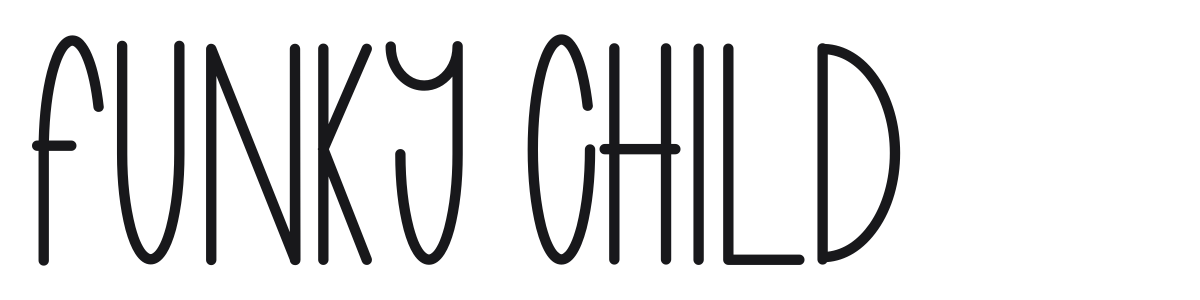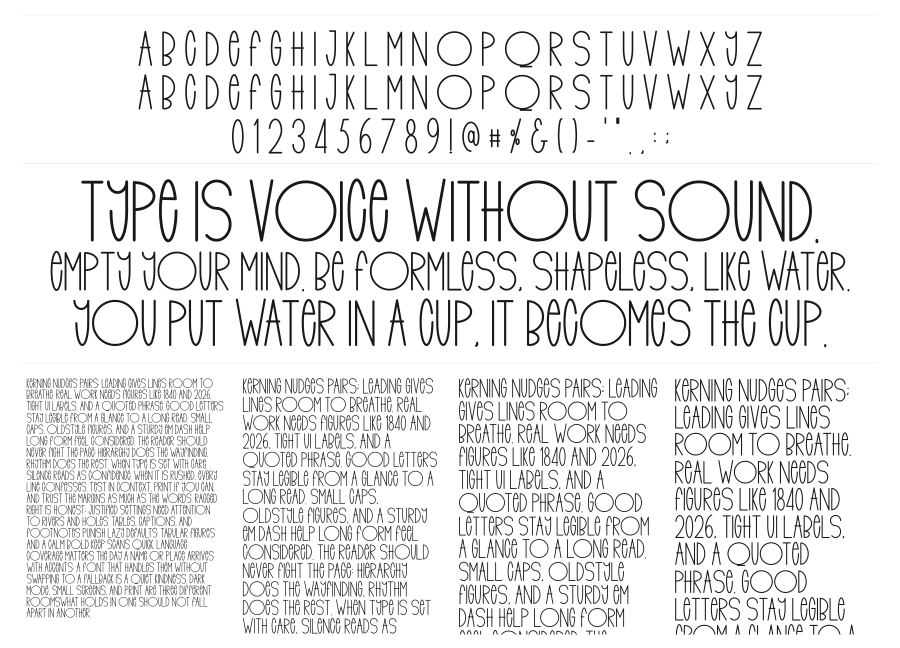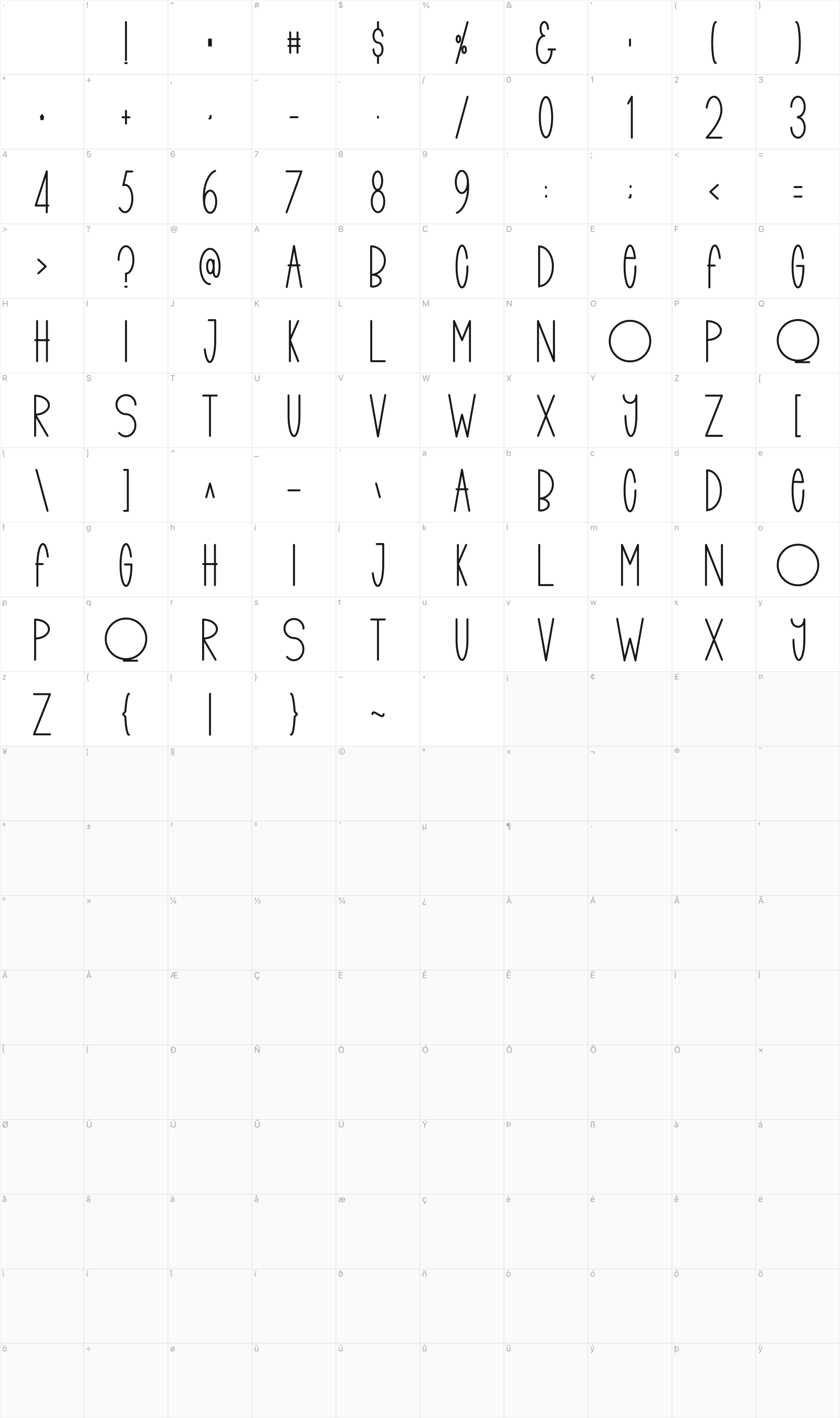
Funky Child
by Andang Prasetyo
Funky Child is a tall, condensed all-caps display font with a thin, hand-drawn stroke and a quirky, youthful energy. Characters lean into exaggerated proportions and looping curves that feel spontaneous rather than constructed. It brings a lighthearted, crafty personality to posters, invitations, and apparel graphics.